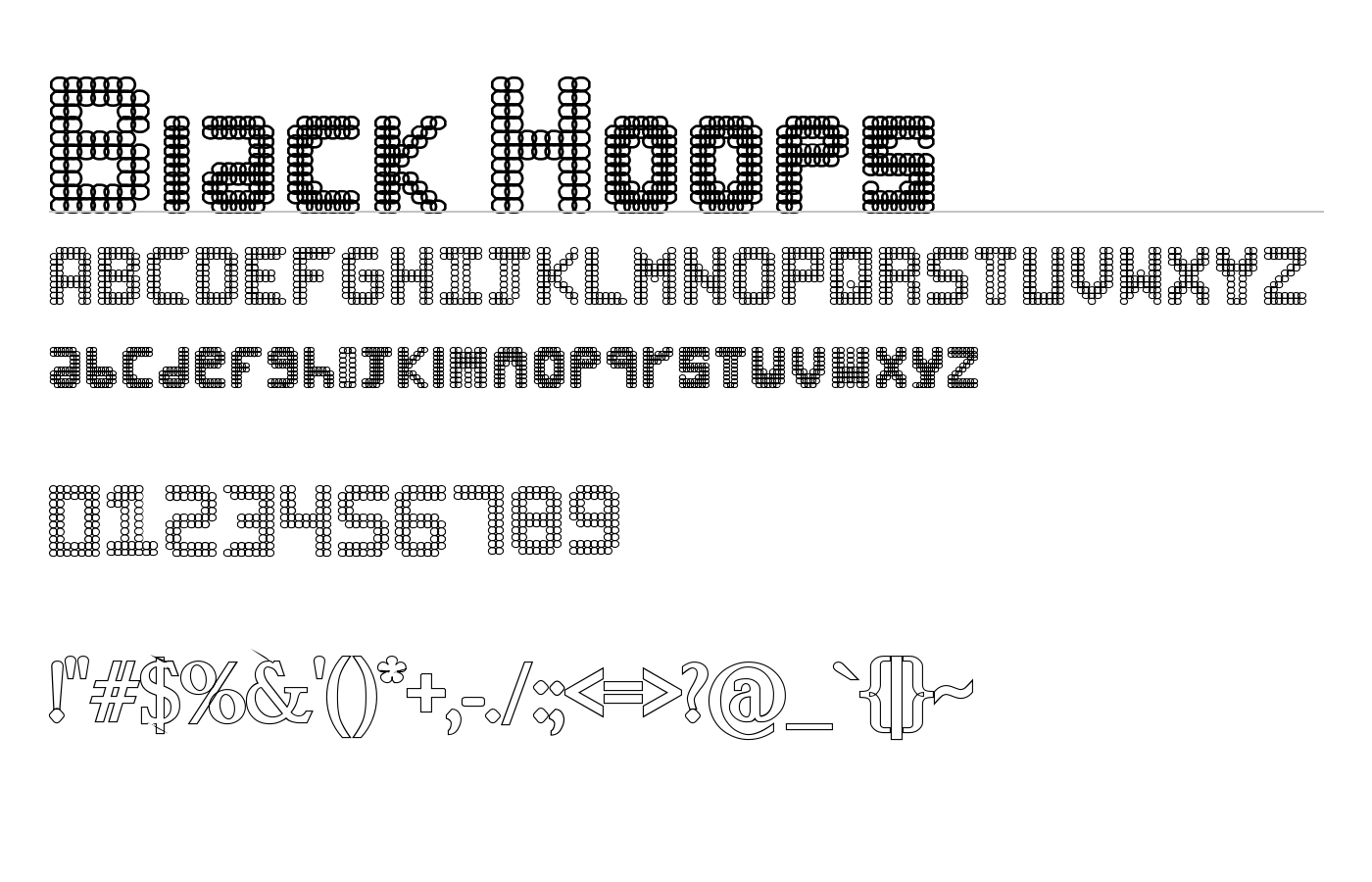
Black Hoops is a unique sans serif display font characterized by its distinctive circular, hoop-like pattern forming each letter and number. With a medium weight and monospaced feel, it offers a playful, modern aesthetic that stands out in creative branding, posters, and headlines where a bold, eye-catching design is needed. Its quirky, geometric style makes it perfect for projects seeking a fun, innovative look without losing readability.
Black Hoops Font
About Black Hoops Font